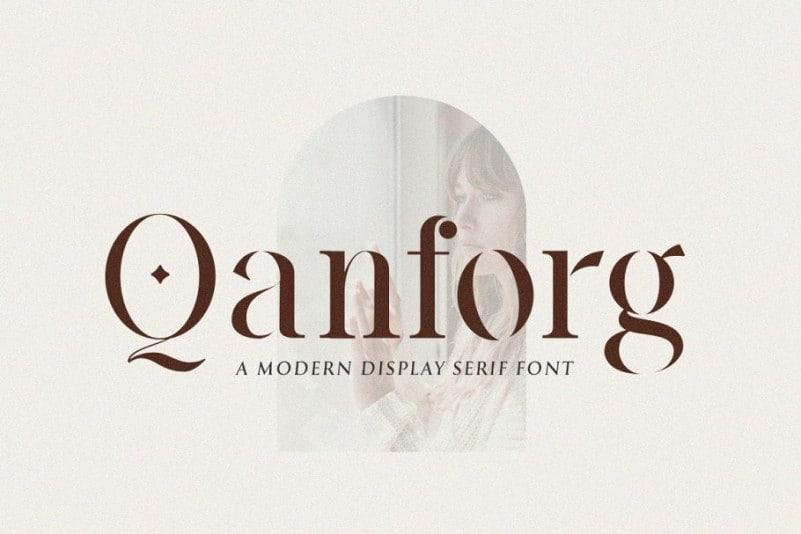
Qanforg Serif Font is a serif style font with a slightly thin character so it gives a more luxurious impression to your design. Made from font designer named Fionà & Co. It’s a modern serif font that is both classic and minimal. It’s elaborate curves and unique shapes make it perfect for headings, logos & wedding invitations.